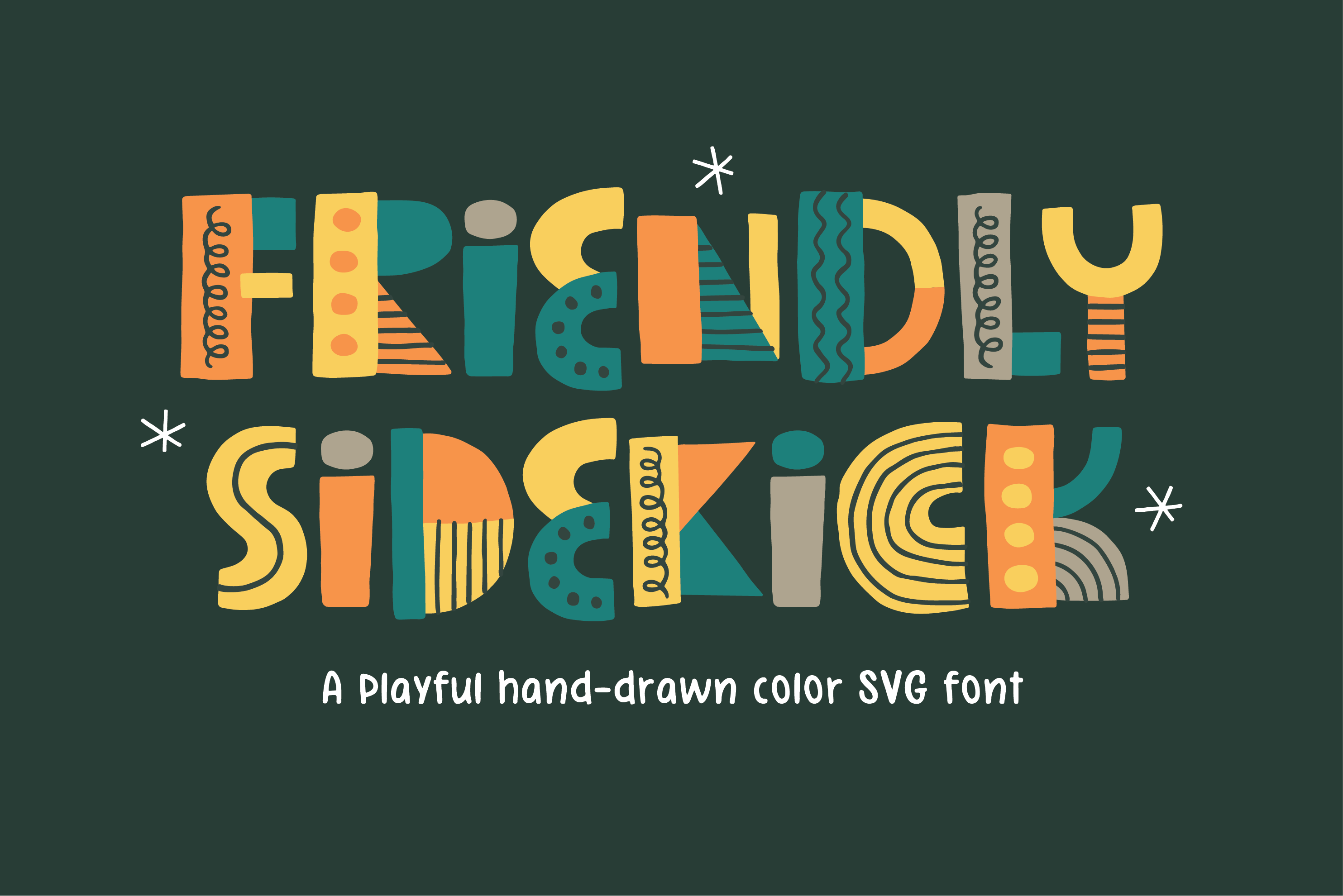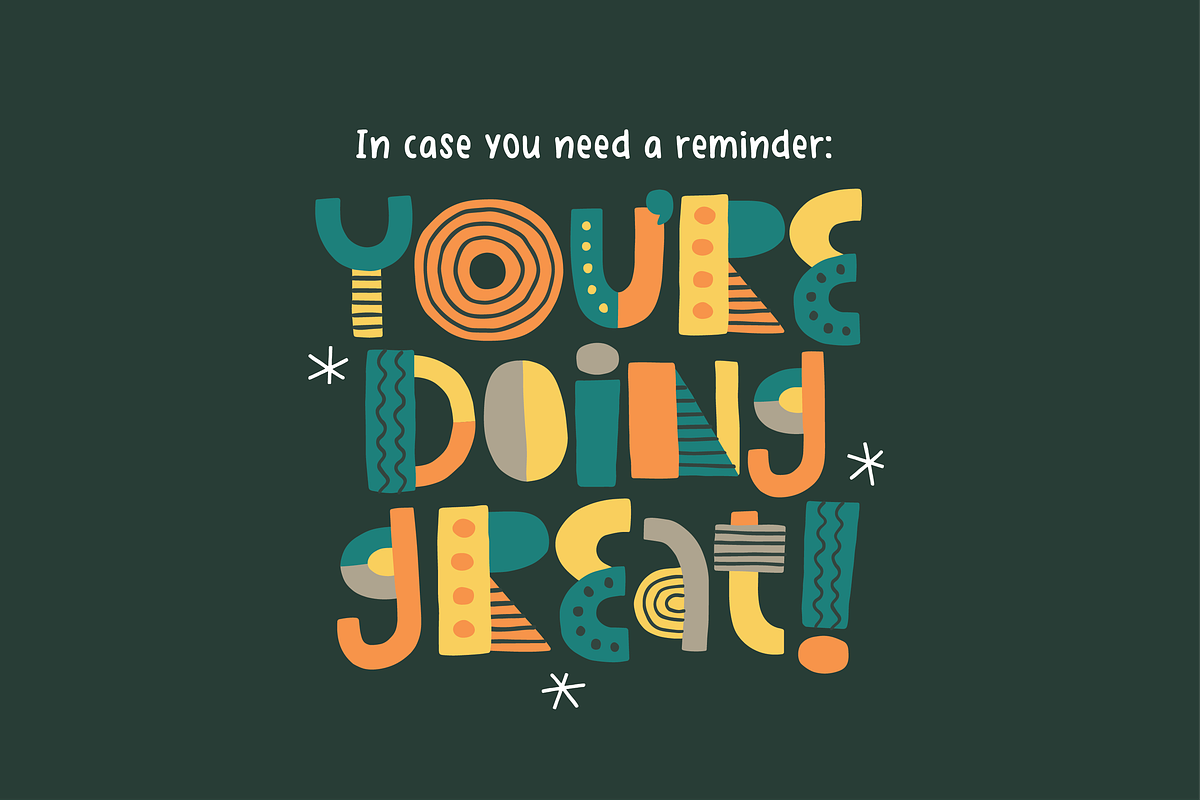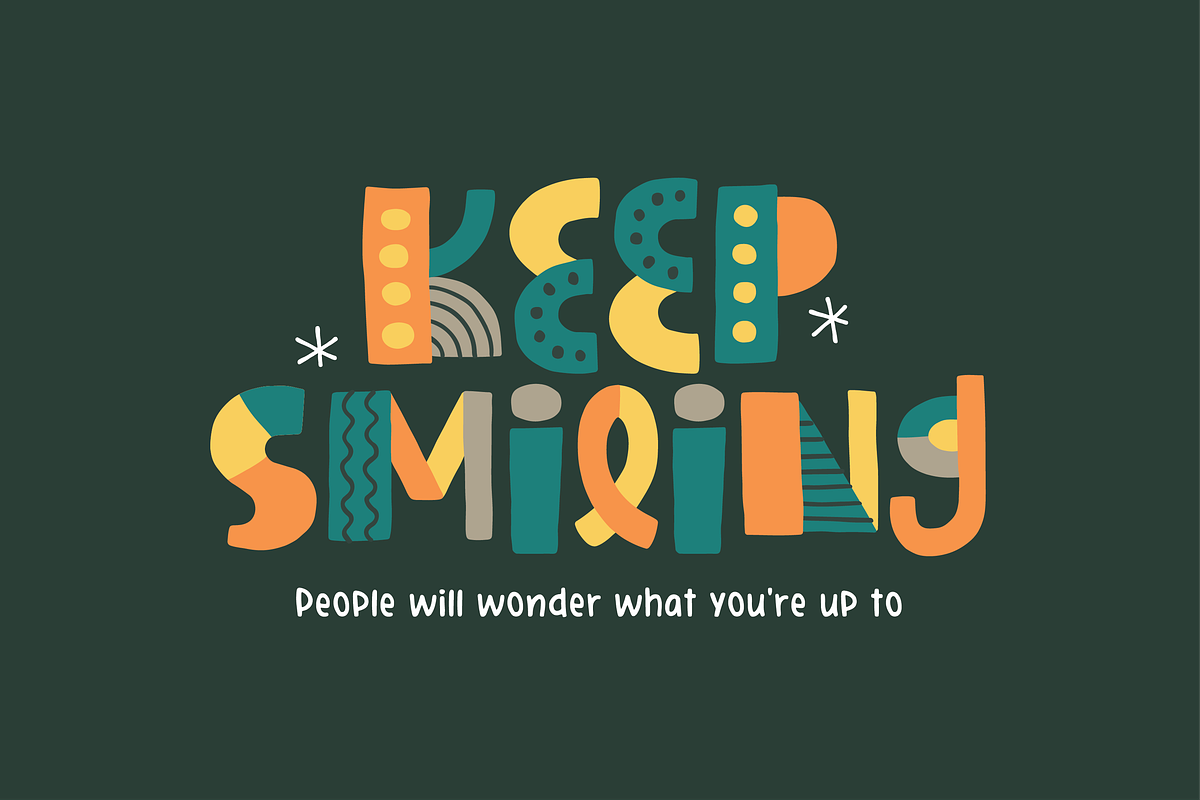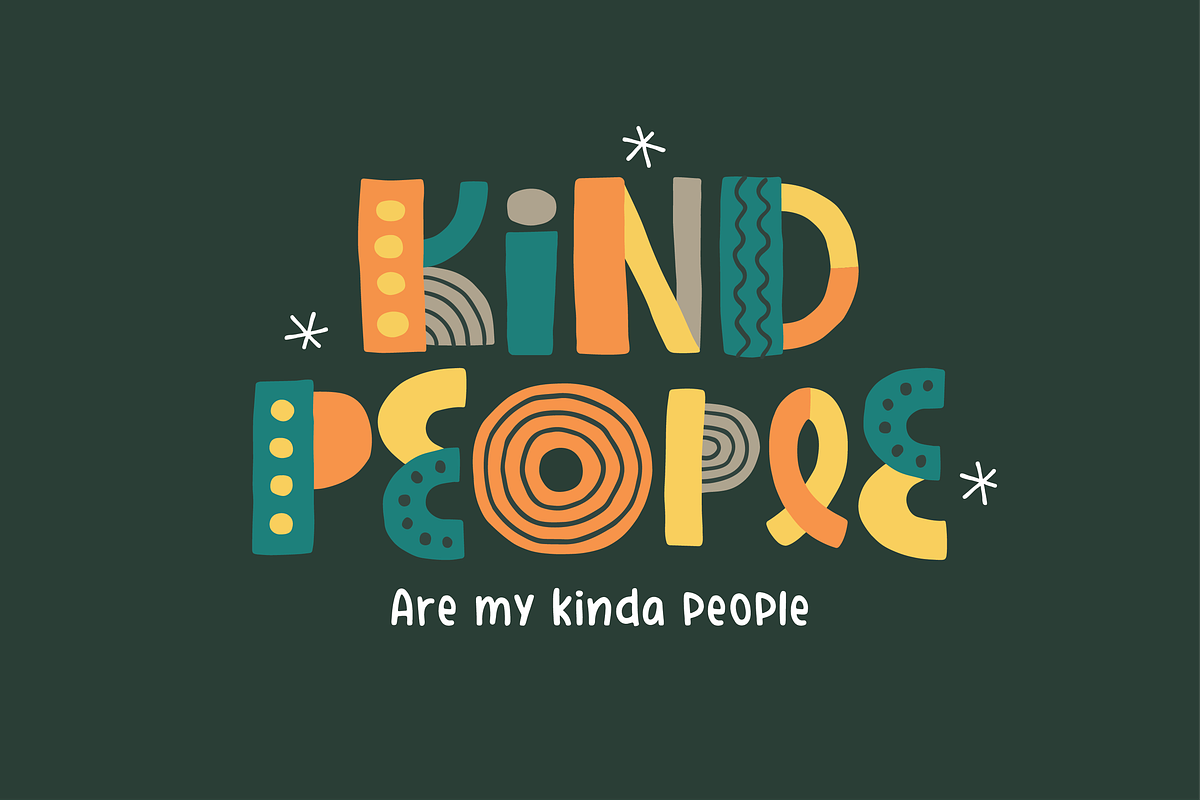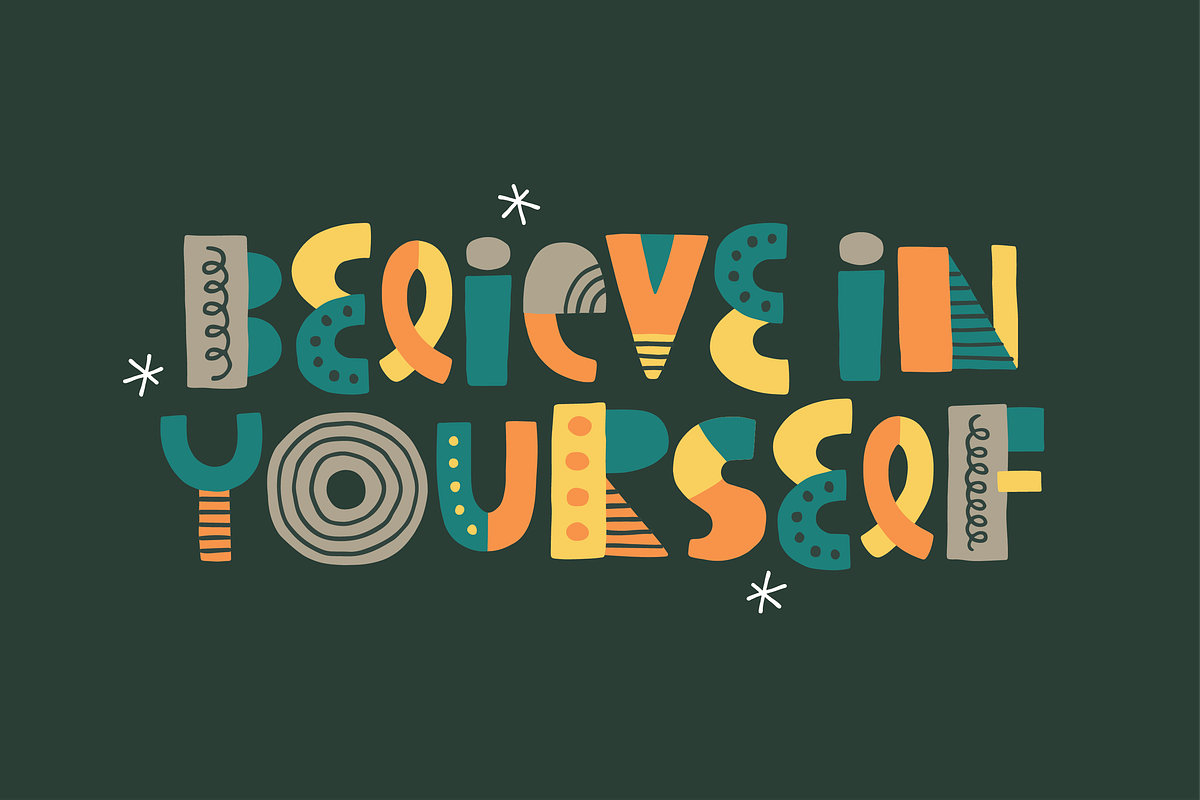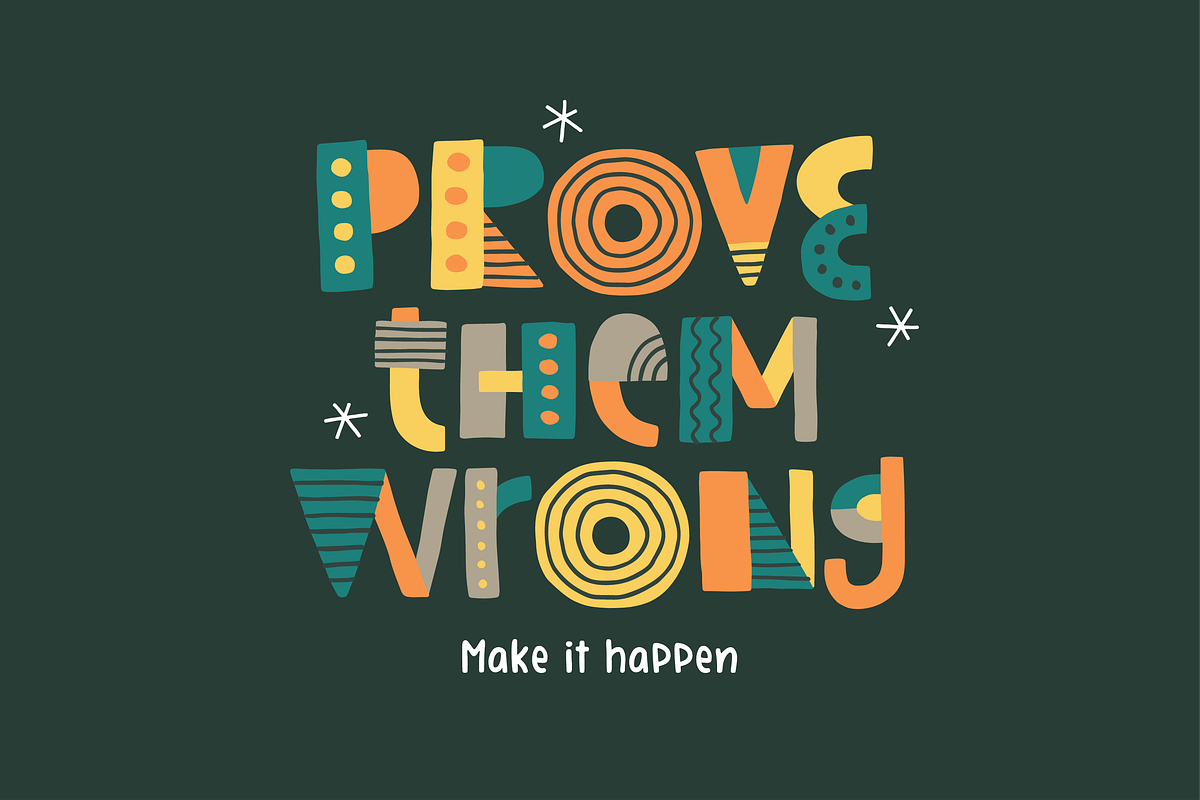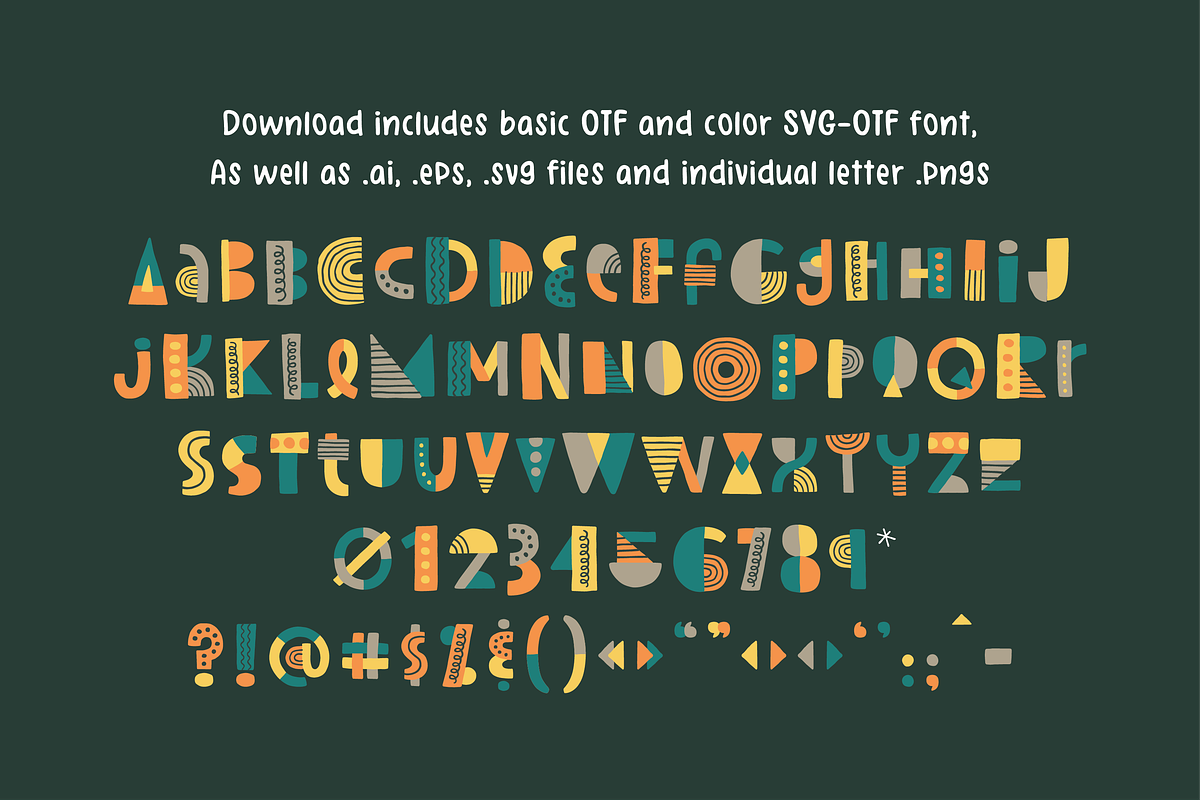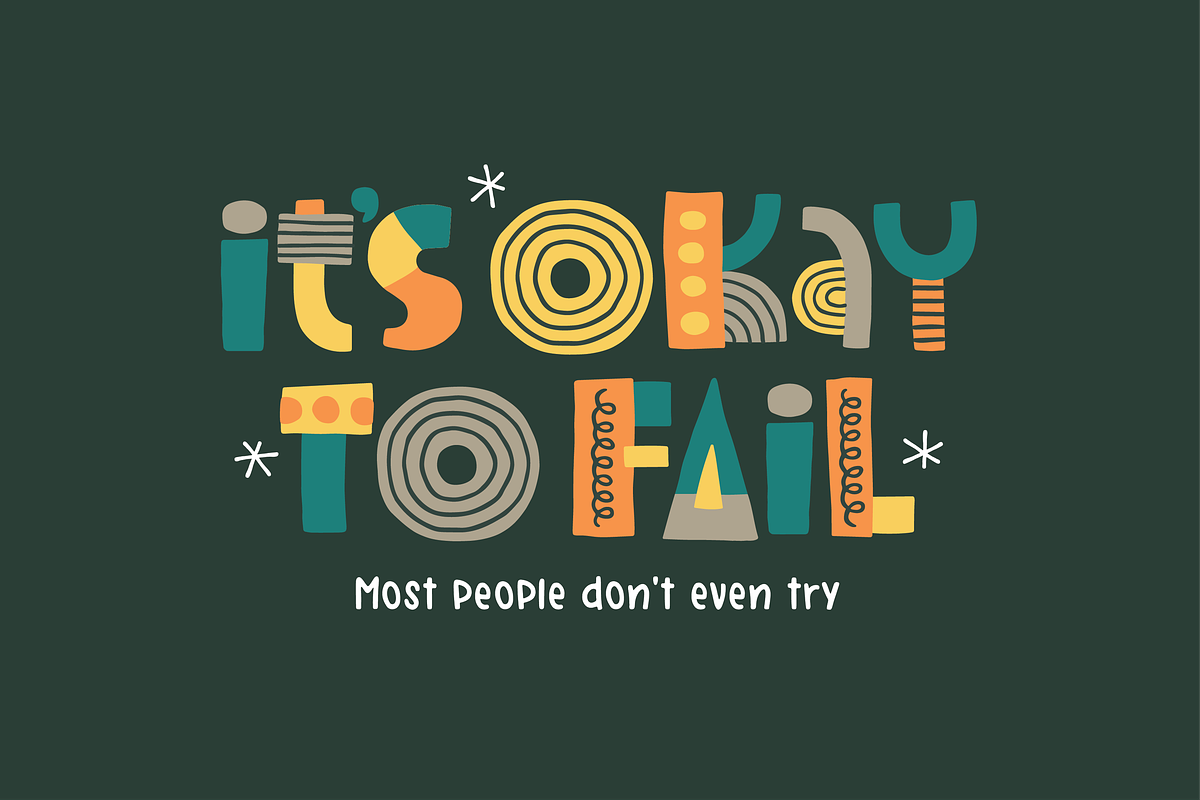
Friendly Sidekick Font
Friendly Sidekick is a bold, charming font packed with personality. It comes in 2 variations: a color SVG-OTF version shown in the screenshots above and a basic black version. Colors can be changed by vectorizing the font using a design program such as Illustrator. I've also included .ai, .eps, .svg, and .png files for use in programs that do not have color font support.